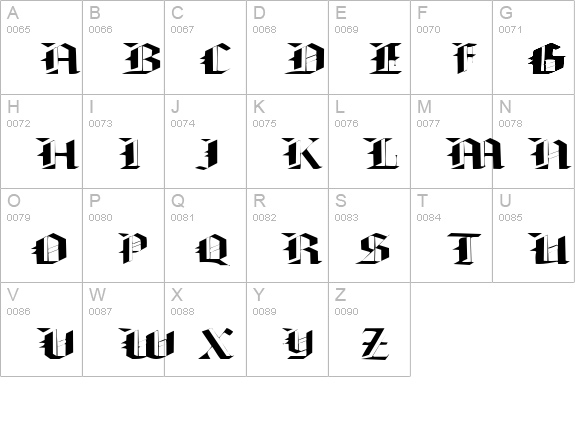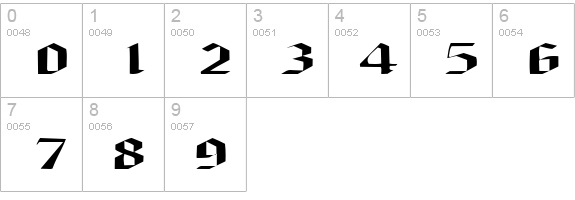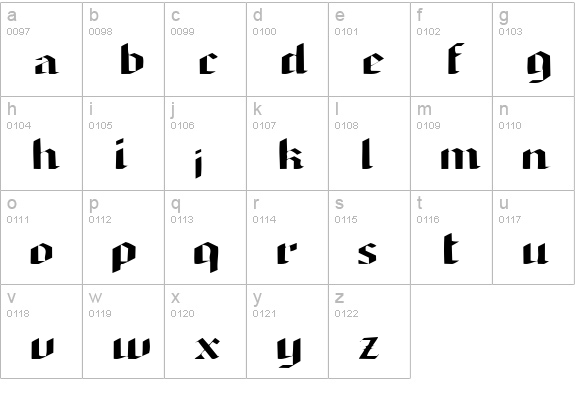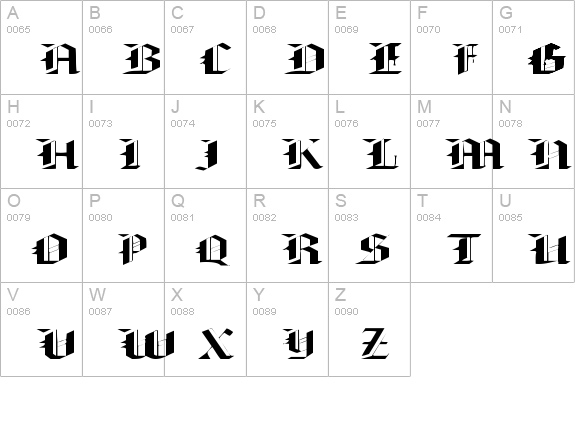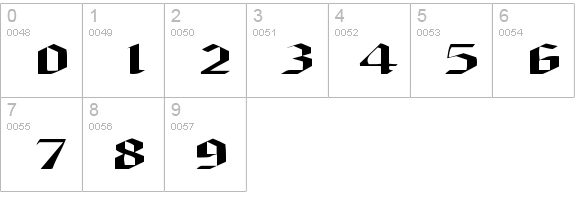
ArmedaExpandedSSK Font Details
ArmedaExpandedSSK is a beautifully crafted font that exudes elegance and sophistication. With its modern and streamlined design, this font is perfect for a wide range of design projects, from branding to editorial design. The sleek lines and sharp angles of ArmedaExpandedSSK give it a contemporary and stylish look that will make your text stand out. What's even better is that ArmedaExpandedSSK is available for free download at FontsMarket.com. This means that you can easily add this stunning font to your collection without any cost. Whether you're a professional designer or just looking to spruce up your personal projects, ArmedaExpandedSSK is a versatile and eye-catching font that is sure to impress. Download it now and elevate your designs with this modern and elegant typeface.